Character Names and Glyph Names 02: “What is a Character?”
If we start asking questions like “What is a character?” the conversation tends to become philosophical, but here I’ll avoid that and focus on characters within the “world of fonts.” In other words, these are characters handled by computers in a broad sense.
In the world of fonts, a character is something that is associated with a character code. That is, “あ” and “ぁ” are different characters, and “か” and “が” are different characters. On the other hand, whether the “Shinnyo” radical in the character “辻” has one dot or two dots, the Unicode code point is 8FBB in both cases, so they are the same character.
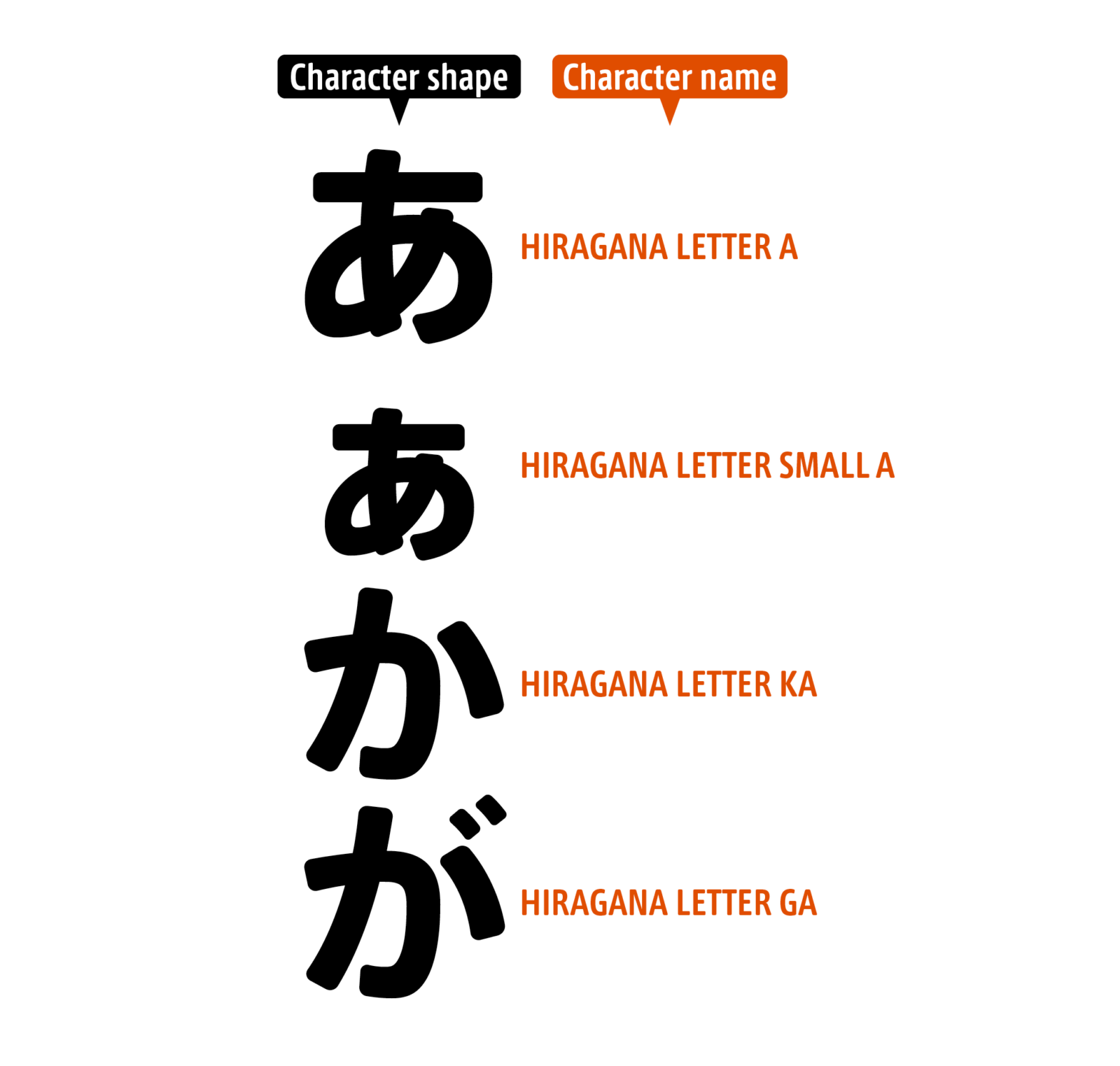
I believe that in most cases, if you just type “つじ (tsuji)” and use the kanji conversion function, the character “辻” with the two-dot “Shinnyo” radical will appear. I still haven’t broken the habit of using the Osaka font, which has been pre-installed on my Mac for as long as I can remember, so I’m writing this manuscript in Osaka now. Therefore, what I see on the screen in front of me is the character “辻” with the one-dot “Shinnyo” radical.
Next time, I may be taking a slight detour, but I’d like to talk about the question: “Why is the same character appearing with either one-dot or two-dot ‘Shinnyo’ radical depending on the font?”